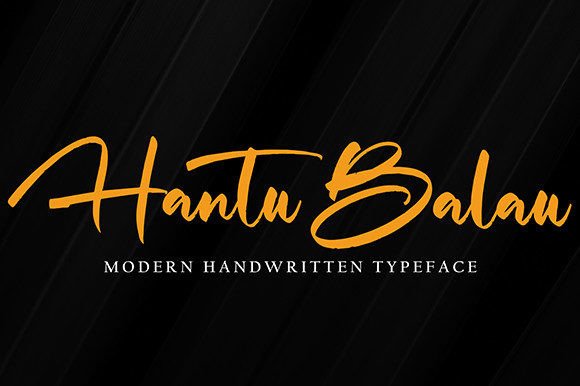
Welcome to the enchanting realm of Hantu Balau, a whimsical and captivating script font that will ignite your creativity and leave you spellbound. This magical font, meticulously crafted by the creative minds of Pineungtype and Missinklab, is the perfect companion for your creative endeavors, whether you're seeking enchanting fonts for Instagram, elegant calligraphy scripts for DIY projects, or a touch of magic for your designs.
With its enchanting curves and elegant strokes, Hantu Balau effortlessly transforms your words into works of art. Its captivating presence dances across the page, evoking a sense of wonder and intrigue. Let your imagination soar as you witness your creative visions come to life, infused with the captivating charm of Hantu Balau.
Unleash the boundless possibilities of self-expression with Hantu Balau. Whether you're a budding artist, an enthusiastic crafter, or a design aficionado, this enchanting font will cast a spell on your creations, leaving your audience captivated and inspired. Experience the joy of crafting personalized invitations, greeting cards, social media posts, and more, adorned with the enchanting allure of Hantu Balau.
Dive into the world of Hantu Balau and let your creativity flourish. Embrace the magic of this extraordinary font and let it guide you on an artistic journey like no other. Its versatility and captivating charm will ignite your imagination and empower you to create designs that resonate with beauty, elegance, and a touch of enchantment. Transform your creative visions into captivating masterpieces with the allure of Hantu Balau.